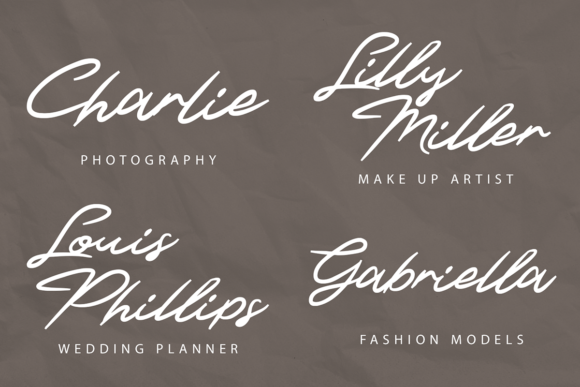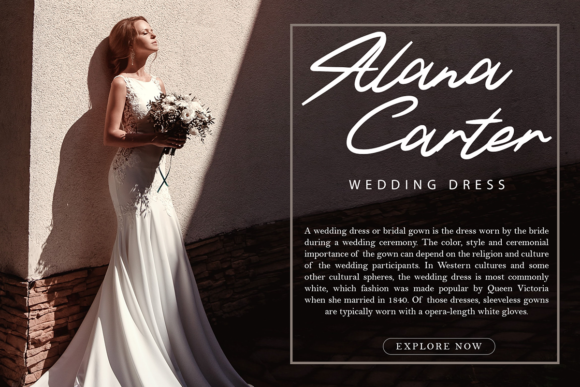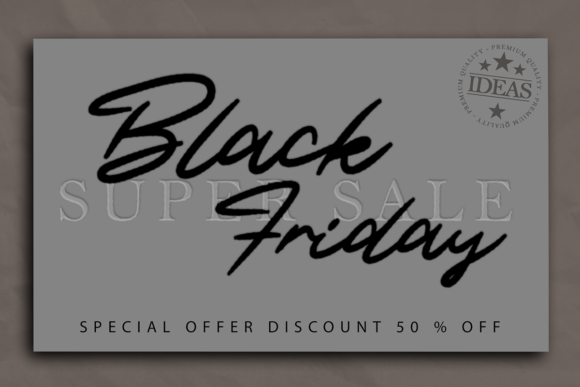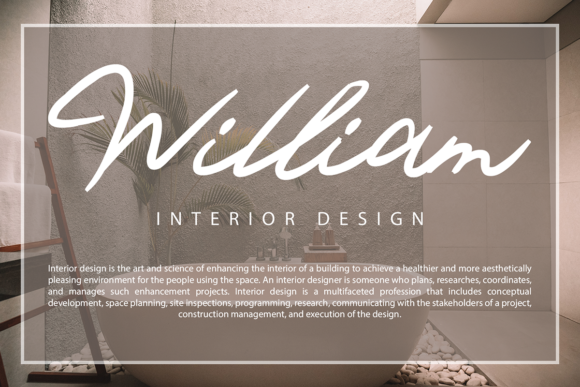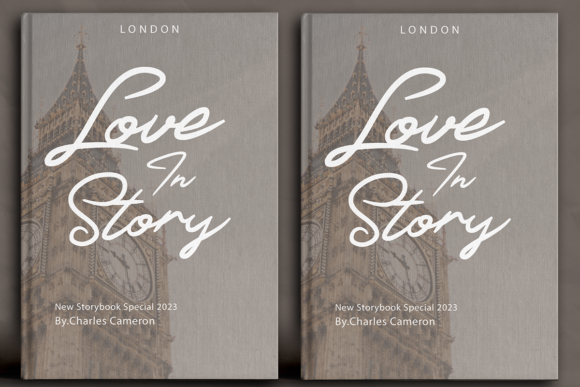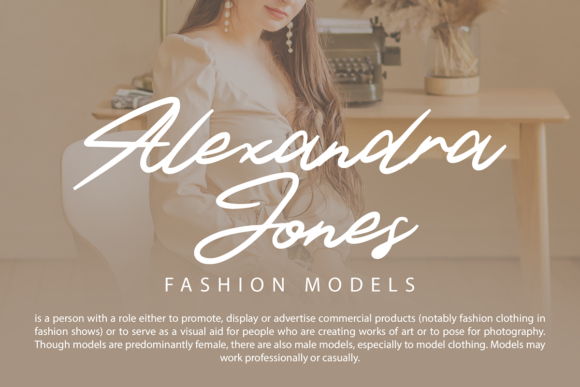
Dawn Mulholland Font: Elevate Your Designs with Elegance and Sophistication
In the world of typography, fonts play a crucial role in conveying the tone and personality of a brand or design. For designers and crafters seeking a modern script font that exudes elegance and sophistication, Dawn Mulholland Font is an excellent choice. This stunning collection of letters and numbers is perfect for a wide range of projects, from logotype and branding design to digital lettering arts, apparel, and advertising.
What is Dawn Mulholland Font?
Dawn Mulholland Font is a modern script font designed to add a touch of luxury and refinement to any design project. Its beautiful, flowing lines and curves make it ideal for creating visually appealing and sophisticated designs. Whether you’re working on a logo design, branding project, or digital artwork, this font is sure to impress.
Key Features of Dawn Mulholland Font
- Modern Script Style: Dawn Mulholland Font boasts a modern script style that is both elegant and versatile.
- Extensive Character Set: The font includes a comprehensive collection of letters and numbers, making it suitable for a wide range of design applications.
- High-Quality Design: Each letter and number has been carefully crafted to ensure high-quality design and exceptional legibility.
Uses for Dawn Mulholland Font
Dawn Mulholland Font is a versatile font that can be used for a variety of design projects, including:
- Logotype: Create a stunning logotype that showcases your brand’s personality and style.
- Branding Design: Use Dawn Mulholland Font to develop a cohesive brand identity that exudes elegance and sophistication.
- Logo Design: Design a professional logo that makes a lasting impression with this beautiful script font.
- Digital Lettering Arts: Add a touch of luxury to your digital artwork with Dawn Mulholland Font.
- T-Shirt/Apparel: Create eye-catching apparel designs that stand out from the crowd.
- Poster: Design stunning posters that showcase your creativity and style.
- Magazine: Use Dawn Mulholland Font to add a touch of elegance to your magazine designs.
- Signs: Create eye-catching signs that grab attention and make a lasting impression.
- Advertising Design: Use this font to develop advertising materials that showcase your brand’s personality and style.
Why Choose Dawn Mulholland Font?
With so many fonts available, why choose Dawn Mulholland Font? Here are just a few reasons:
- Unique and Exclusive: Dawn Mulholland Font is a unique and exclusive font that will set your designs apart from the competition.
- High-Quality Design: The font has been carefully crafted to ensure high-quality design and exceptional legibility.
- Versatile: Dawn Mulholland Font is a versatile font that can be used for a wide range of design applications.
- Elegant and Sophisticated: This font exudes elegance and sophistication, making it perfect for designers and crafters seeking to add a touch of luxury to their designs.
In conclusion, Dawn Mulholland Font is an exceptional modern script font that is perfect for designers and crafters seeking to add a touch of elegance and sophistication to their designs. With its beautiful, flowing lines and curves, extensive character set, and high-quality design, this font is sure to impress. Whether you’re working on a logotype, branding project, or digital artwork, Dawn Mulholland Font is an excellent choice.